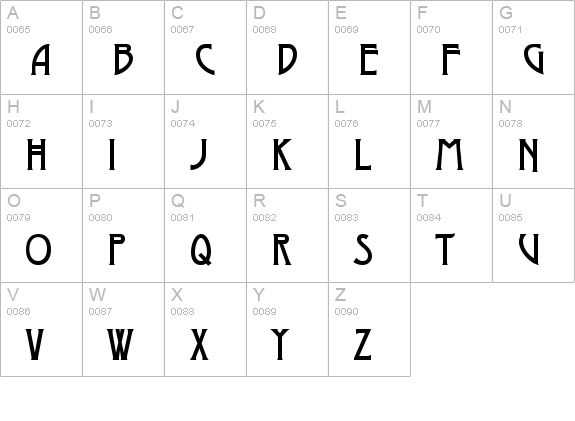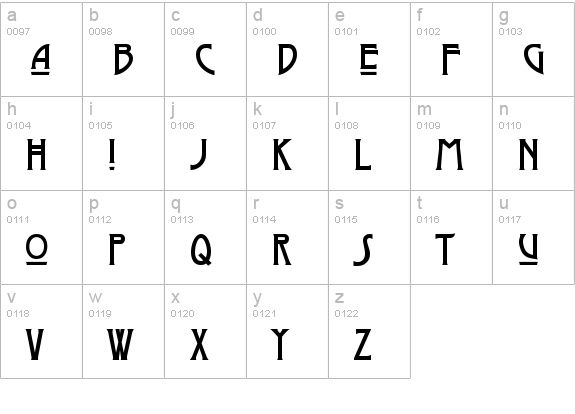
Dyer font is a modern and versatile typeface that exudes elegance and sophistication. Its clean lines and rounded edges make it perfect for a wide range of design projects, from branding to editorial layouts. The Dyer font family includes a variety of weights and styles, allowing for endless creative possibilities. What sets Dyer font apart is its unique blend of classic and contemporary elements, making it a timeless choice for designers looking to make a statement. Whether you're designing a sleek logo or crafting a sleek headline, Dyer font is sure to elevate your work to the next level. Best of all, Dyer font is available for free download at FontsMarket.com, making it accessible to designers of all skill levels. So why wait? Add Dyer font to your toolkit today and start creating stunning designs that stand out from the crowd.